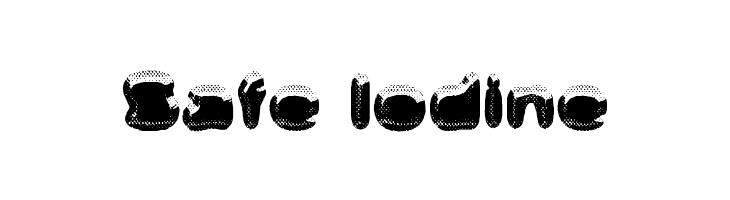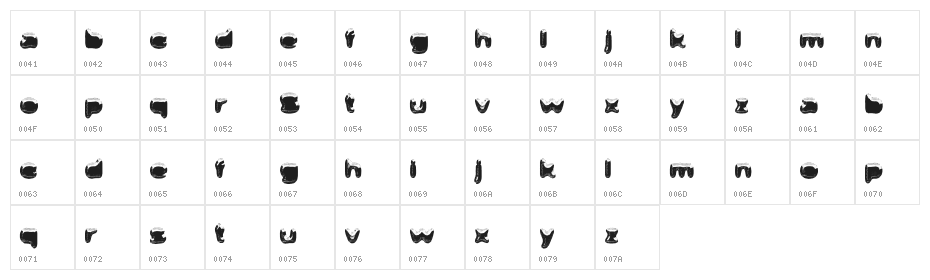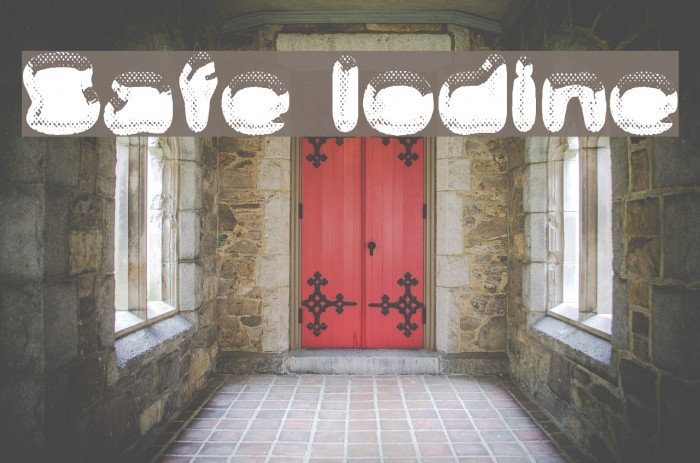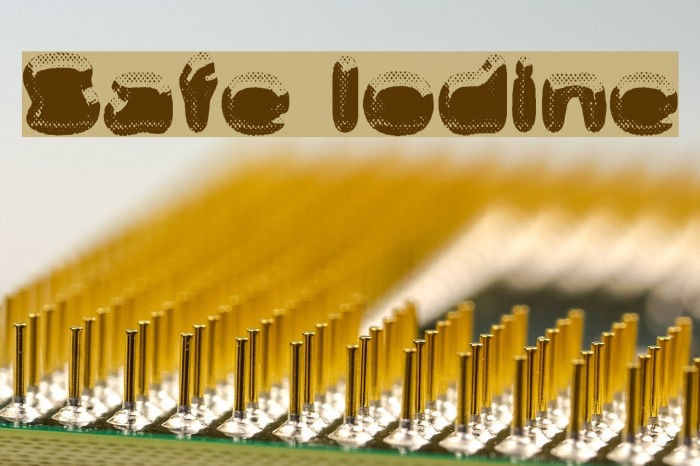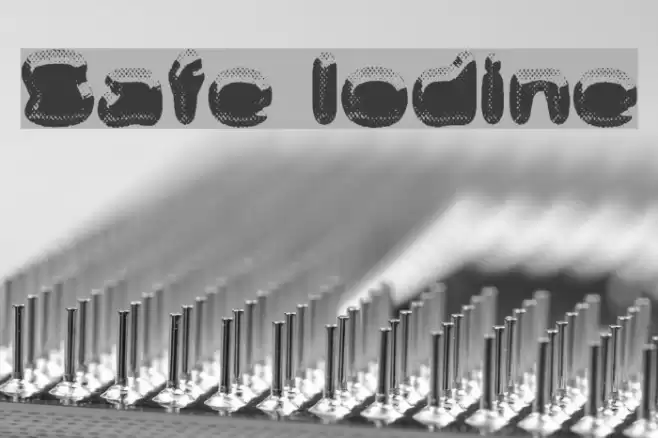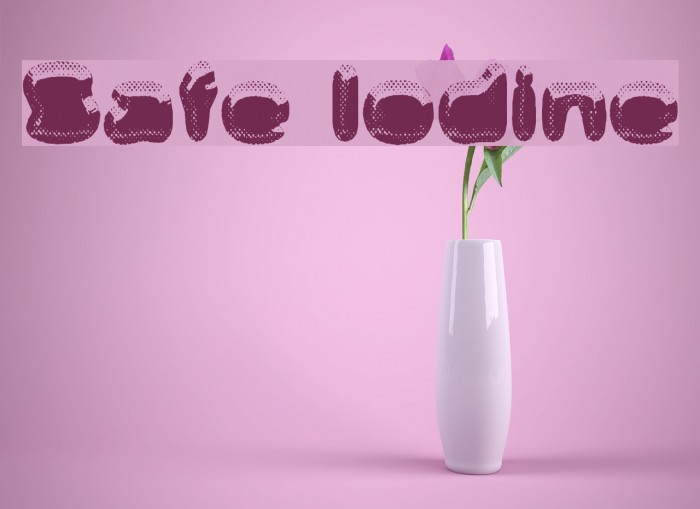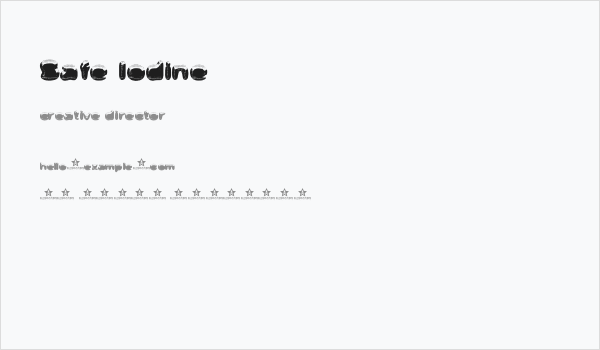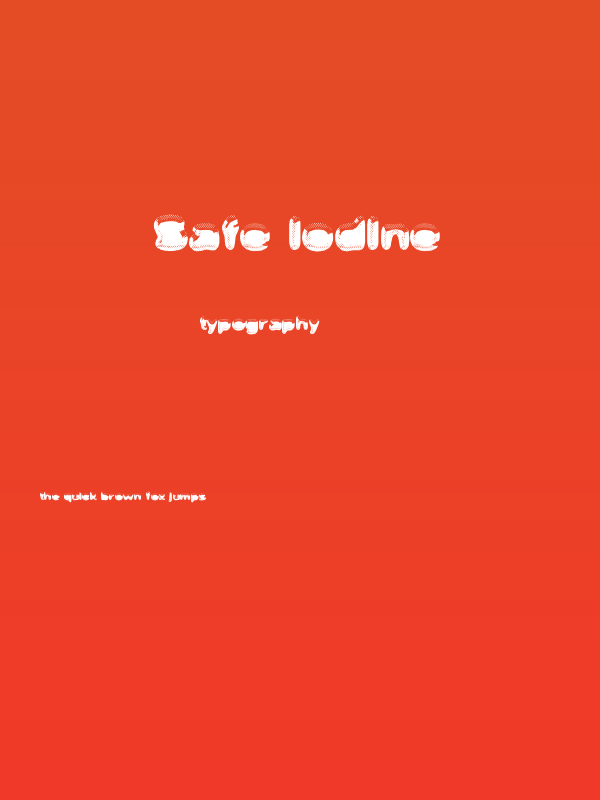
Safe Iodine Font
Safe Iodine Description
This font features a bold, playful design with a three-dimensional effect created by a dotted halftone pattern. The characters are rounded and have a soft, bubbly appearance, giving them a unique and eye-catching style. The font's design is reminiscent of comic book art, with a strong emphasis on visual impact and creativity. The uppercase and lowercase letters maintain a consistent style, with the same playful and bold characteristics. This font is ideal for projects that require a fun and engaging visual element, such as children's books, posters, or creative branding.
| Overall Style | Playful, Comic |
| Proposed Projects | Ideal for children's books, posters, creative branding, and comic-style designs. |